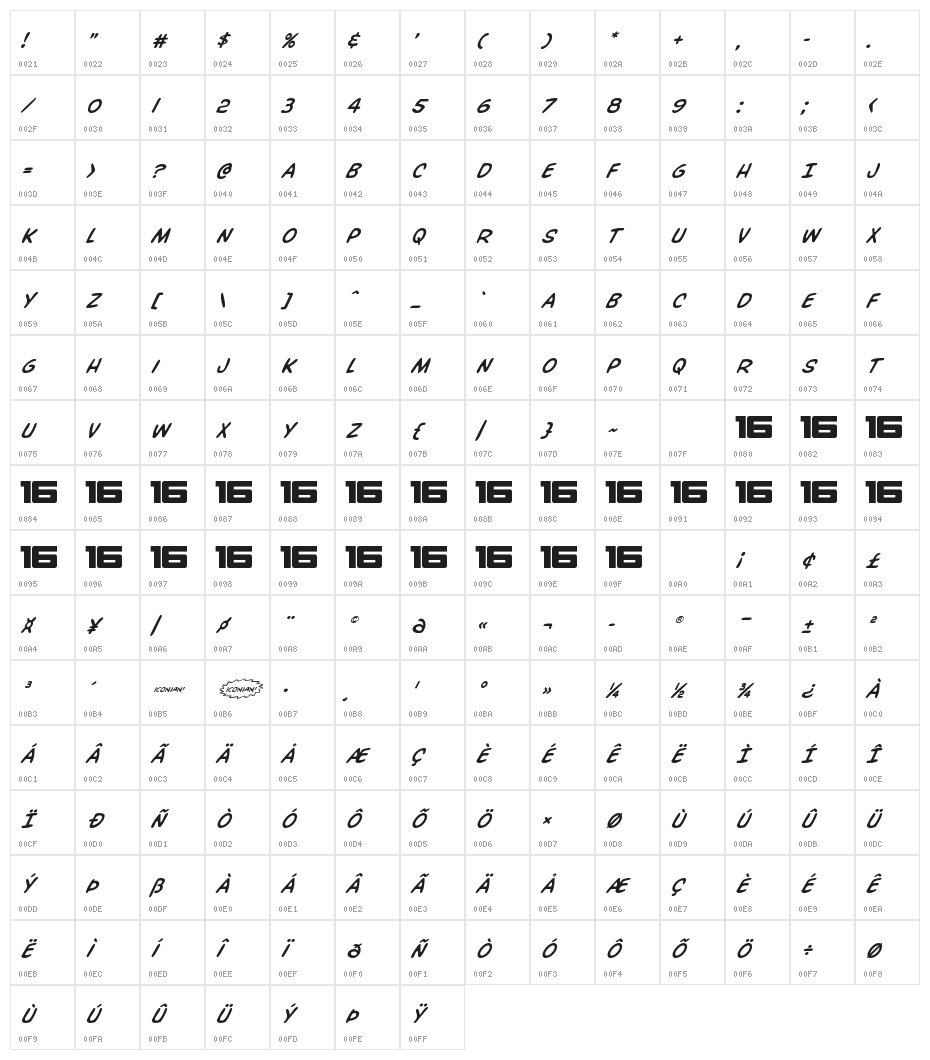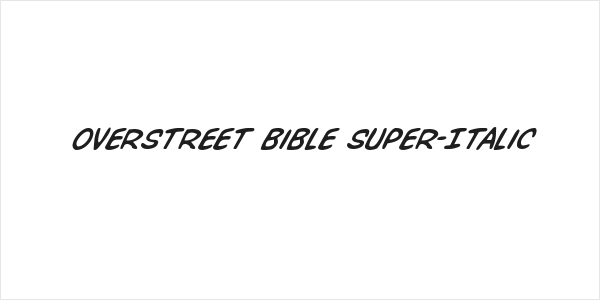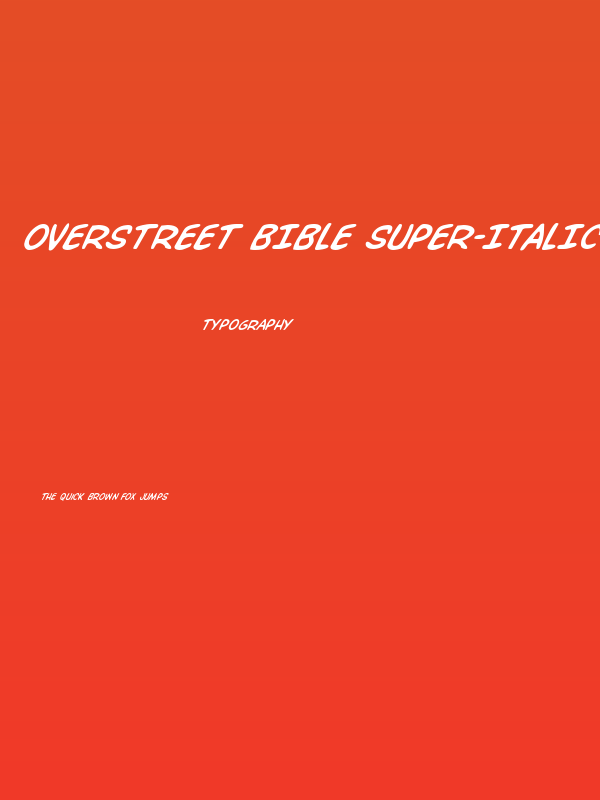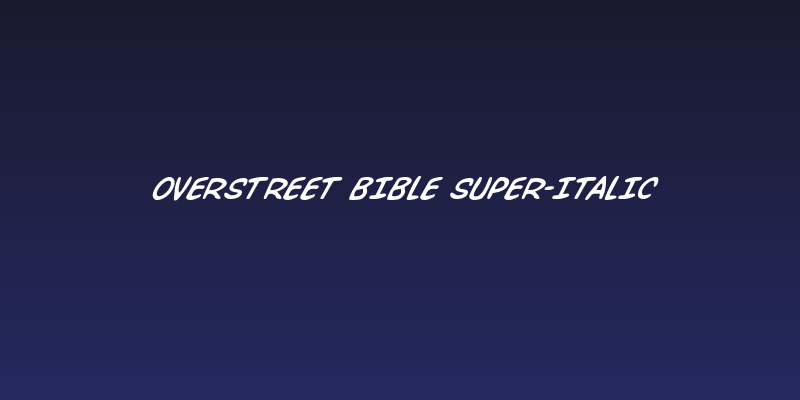
Overstreet Bible Super-Italic Font
Overstreet Bible Super-Italic Description
This font features a dynamic and energetic style, characterized by its italicized, cursive-like appearance. The letters are bold and slightly slanted, giving a sense of motion and fluidity. The strokes are smooth and rounded, with a consistent thickness that maintains readability while adding a playful touch. The numbers and special characters follow the same stylistic cues, ensuring a cohesive look across all elements. This font is ideal for projects that require a lively and informal tone, such as posters, advertisements, or creative branding.